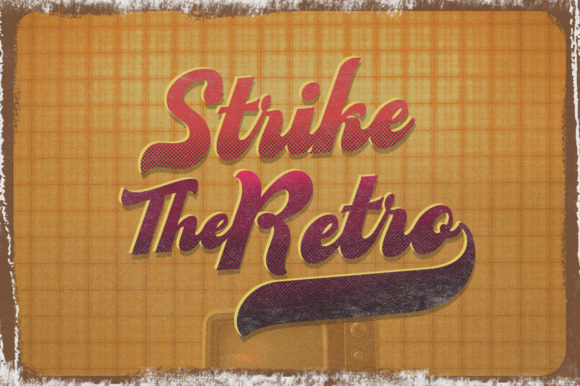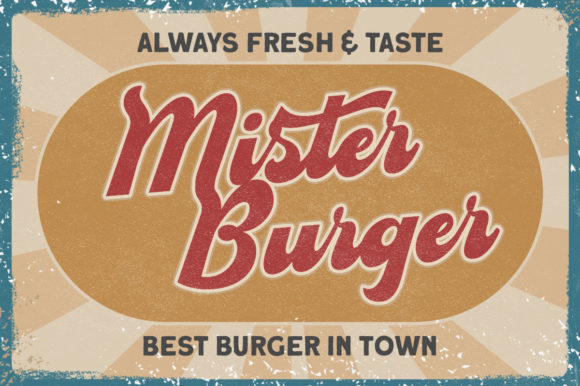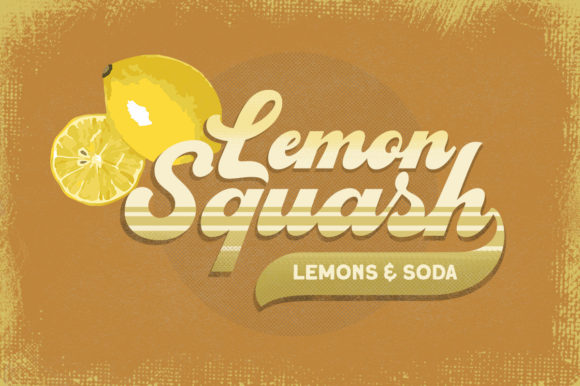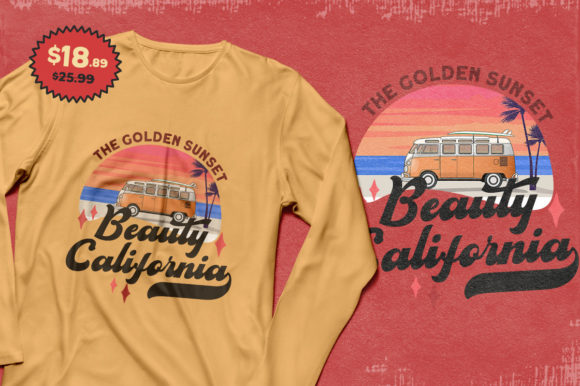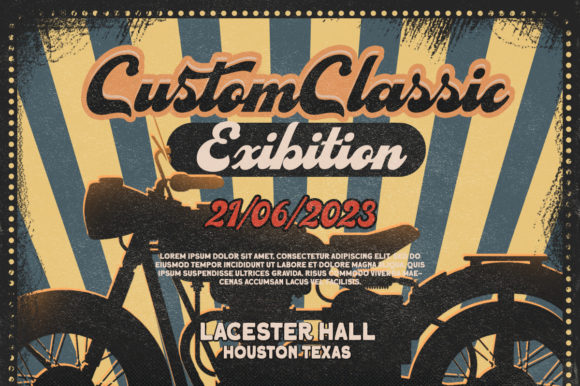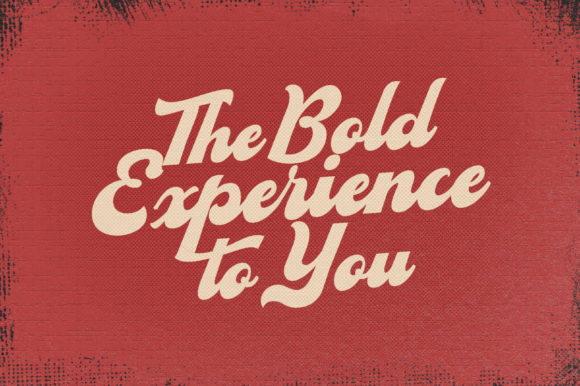
Introducing Boldstrike Font: Add a Retro Touch to Your Designs
Are you looking for a font that can add a strong, confident, and dynamic touch to your headlines and logotype projects? Look no further than Boldstrike Font, a gorgeous and bold handwritten font that’s perfect for designers and crafters who want to give their designs a retro feel.
What is Boldstrike Font?
Boldstrike is a carefully crafted handwritten font that’s designed to bring a sense of nostalgia and character to your designs. With its bold and confident strokes, this font is perfect for creating eye-catching headlines, logotypes, and other design elements that demand attention.
Key Features of Boldstrike Font
- Bold and Confident: Boldstrike Font features bold and confident strokes that are sure to make your designs stand out.
- Retro Touch: This font has a distinctly retro feel that’s perfect for designers who want to add a touch of nostalgia to their designs.
- Handwritten Style: Boldstrike Font is a handwritten font that’s been carefully crafted to look natural and authentic.
- Dynamic and Strong: This font reads as strong, confident, and dynamic, making it perfect for headlines and logotype projects.
Uses for Boldstrike Font
Boldstrike Font is a versatile font that can be used for a wide range of design projects, including:
- Headlines and Titles: Use Boldstrike Font to create eye-catching headlines and titles that demand attention.
- Logotypes and Branding: This font is perfect for creating logotypes and branding elements that need to make a strong impression.
- Posters and Flyers: Add a retro touch to your posters and flyers with Boldstrike Font.
- Social Media Graphics: Use this font to create social media graphics that stand out from the crowd.
Why Choose Boldstrike Font?
There are many fonts available that claim to offer a retro or vintage feel, but Boldstrike Font stands out from the crowd. Here are just a few reasons why:
- Unique Style: Boldstrike Font has a unique and distinctive style that’s sure to make your designs stand out.
- High-Quality Design: This font has been carefully crafted to ensure that it’s of the highest quality and looks great in any design.
Tips for Using Boldstrike Font
Here are a few tips for using Boldstrike Font in your designs:
- Use it Boldly: Boldstrike Font is designed to be used boldly, so don’t be afraid to experiment with different sizes and colors.
- Pair it with Other Fonts: Try pairing Boldstrike Font with other fonts to create a unique and interesting design.
- Experiment with Colors: This font looks great in a wide range of colors, so don’t be afraid to experiment and find the perfect color for your design.
Boldstrike Font is a gorgeous and bold handwritten font that’s perfect for designers and crafters who want to add a retro touch to their designs. With its strong, confident, and dynamic strokes, this font is sure to make your headlines and logotype projects stand out. Whether you’re creating posters, flyers, social media graphics, or logotypes, Boldstrike Font is a great choice.